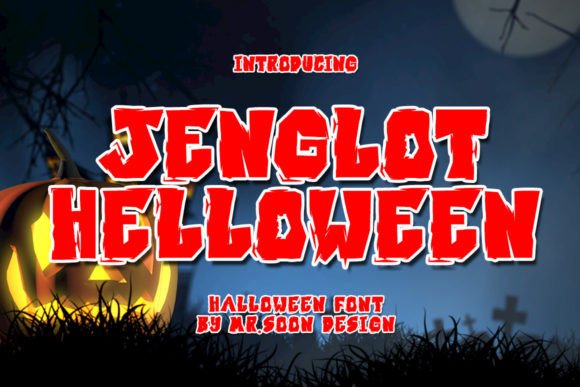
Unlock the mysteries of the night with Jenglot Helloween Font, a creation of Mr. Soon Design that sends shivers down your spine. This captivating decorative font wields capital letters as its weapon, commanding attention like a ghostly apparition on the page.
Indulge in the macabre charm of Jenglot Helloween, a font that dances on the edge of darkness. Imagine crafting spine-tingling horror storybooks, where its bold presence conjures images of haunted houses and eerie creatures. The headlines it adorns will scream with mystery, alluring readers into a world of the unknown.
Embrace the power of Jenglot Helloween, a font that whispers secrets in the shadows. Its intricate curves and sharp angles evoke the chilling atmosphere of a haunted mansion, making it the perfect choice for titles that seek to evoke a sense of unease and intrigue.
With Jenglot Helloween, you hold the key to unlocking the depths of darkness. Let its haunting presence grace your designs, and watch as it weaves a spell of mystery and allure. Experience the thrill of the unknown with Jenglot Helloween, the font that dares to explore the realms of fear.